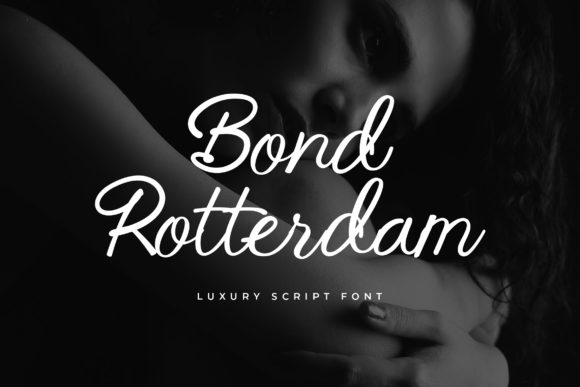
Unleash the allure of sophistication and elegance with Bond Rotterdam, the quintessential script font designed to captivate hearts. Crafted with meticulous attention to detail, each stroke exudes a symphony of smooth curves, intertwining seamlessly like a graceful dance.
Indulge in the allure of Bond Rotterdam, a font that embodies the essence of luxury and grace. Its flowing lines evoke the charm of a handwritten note, inviting you to pen stories with a touch of timeless style. Whether you're crafting fashion statements or adding a touch of elegance to editorial designs, Bond Rotterdam is your muse, elevating your creations to new heights of beauty.
Experience the magic of Bond Rotterdam, a font that will ignite your imagination. Let its curves inspire your designs, adding a touch of enchantment to every project. From the subtle shimmer of a fashion label to the captivating allure of an editorial spread, Bond Rotterdam transforms ordinary words into extraordinary expressions.